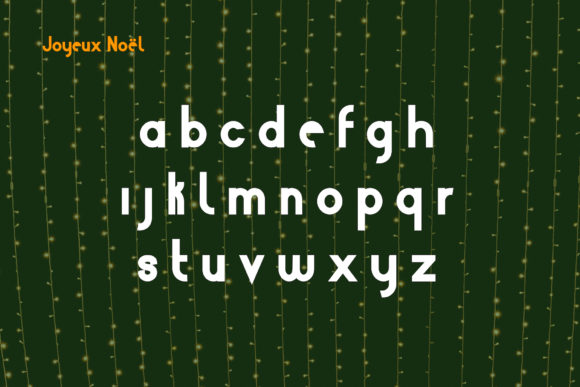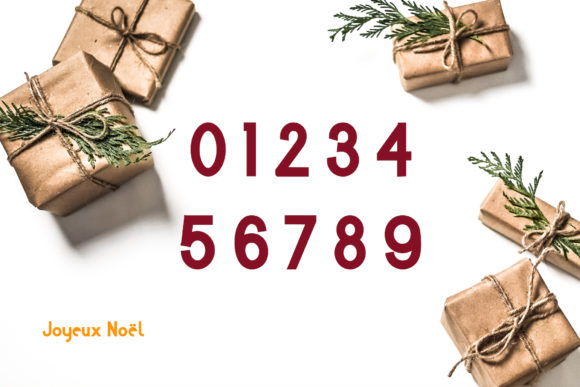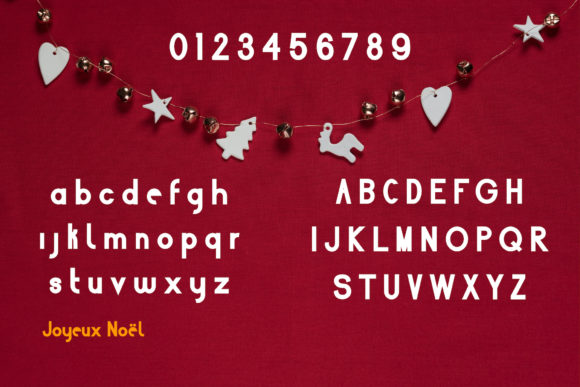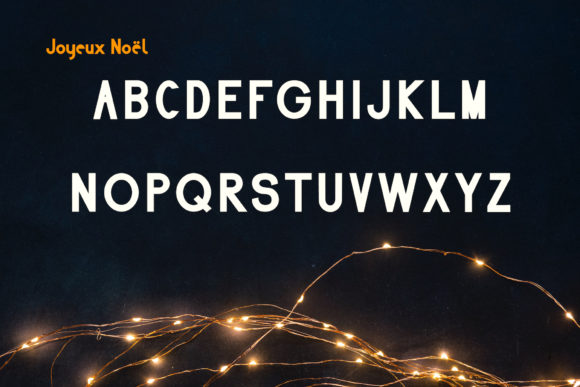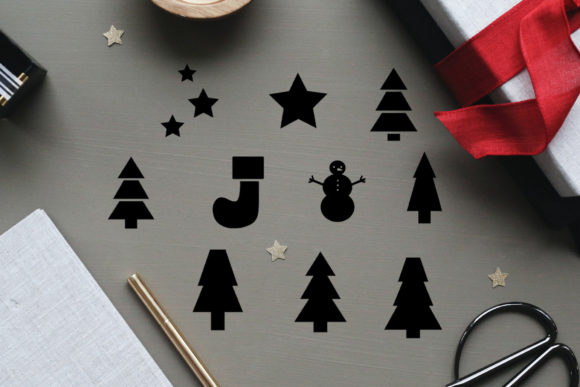
Introduction to Joyeux Noël Font
Joyeux Noël is the perfect sans serif font for your Christmas list.
Key Features of Joyeux Noël Font
Why Choose Joyeux Noël Font?